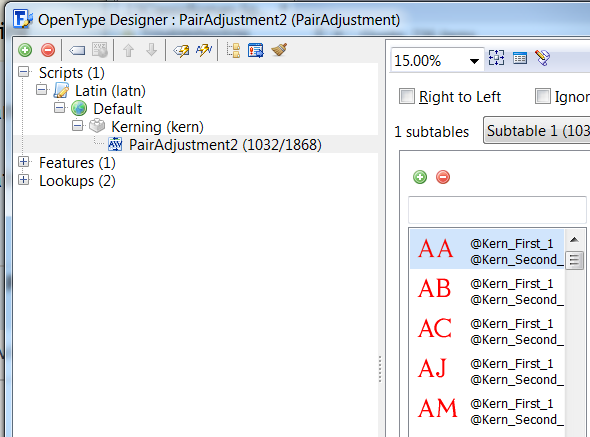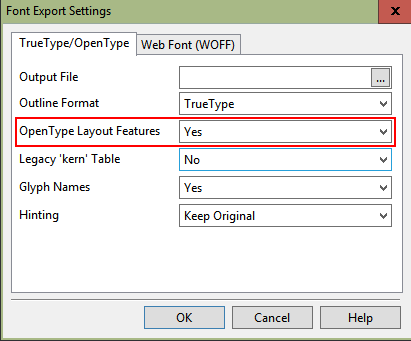
Can Fonts Be save as only a TTF font
Used FontCreator Pro V9 to create a Monumental Font and the Installer in the program to put into Windows 7 Home so other programs can use them. The fonts seem to work in Corel Draw, but not all programs.
Question is when I output a font is it saved as both a TTF and a OTF? Need the option to save only as a older TTF format. In my Gerber program within the program there is a TTF converter program to install them so they work from with in the program, which seem to be an issue that will not allow them to install. Not sure if the problem is with the Gerber Omega program or with how FontCreator files are created and stored. Any insight on what is going on or what I can do to get the fonts to work.
Just change the file extension to *.ttf in the Font Export Options.
There is no important difference. If you just renamed your *.otf fonts to *.ttf, your program will accept them.
Hi, thanks for the info. I have attached the Created Font File to this e-mail for you to evaluate to see why I might be having issues of it not being able to install on my Gerber Omega 5.0 TTF font install program. It seems to work under Corel Draw OK, but not my Omega Program. Not sure why this program is having issues of importing the font into the program.
I believe to get a TT-only font, you need to also change the Export drop-down shown in the screen shot to “No.”
That should work, and if you want kerning you should include a legacy kern table too. FontCreator 9 kerning uses OpenType tables.
Strangely Microsoft Word (2007 version) only does kerning if the font has a legacy kern table, even for OpenType fonts.
There’s nothing strange about that. Serif PagePlus X8 or earlier has the same issue, and that supports OpenType GSUB features, but Microsoft only introduced OpenType support for Word in version 2010.
Have tried setting the output files to TTF only, when I check the file afterwards the extension on the file is always OTF. Also when I ask to rename the file do not get the option to change the extension from otf to only ttf. Have also turn on Legancy Setting to see if that helps, turned off open type features NO, Hinting original. Always end up with a otf font file. Help!
In general the font file extension is irrelevant, but some older software might depend on it, so manually try to rename the extension to .ttf and see if that helps.
Delete the text path/filename from the export options. With the settings as indicated, when you export choose ttf from the drop down in the export dialog. Once in a while it will try to still keep the otf extension. You should be able to see that happen when the filename is then populated in the export dialog. If that happens, try the drop down for the file type again.
Just Made my 2nd Version on a Classic Roman Monument Sandblast font used at 2 1/2" plus sizes, attached is the file for your review would like any suggestion to improve or speed up the process, still spending a lot of time having to manual kern letter pairs even after using auto kern in FrontCraetor 9.0. Have replaced several of the characters with divider bars to make it more useful in my Industry for use. I’ll see if I can upload the creation file and a TTF of it, still having issues trying to install in my Gerber Omega Program even though it works in Corel Draw.
Nice design, but the font doesn’t contain any kerning. Maybe you are talking about the left and right side bearings of each glyph.
Maybe it doesn’t like the characters (e.g. " ) in your font name (2.5"+ Classic Roman -Sgobba Mon)? Or maybe it is too long. Do give it a simple name like Sgobba Mon
Not sure what you mean that it doesn’t included any kerning, ran font through auto metrics / kern, but then had to adjust many of the side metrics on the separator dashes used with the dates cause the program change some of my orginal metrics bearings, also placement of period and comma. Font is accepted in most programs except for the one I need to run it in the most.
Plan on contacting Gerber Omega tech support and see what they have to say.
As you can see the font itself is very basic which contains the most often used characters that I use in the Monument Industry at large sizes , not like Desktop publishing or in a word processor at 12-20 point.
PT,
Does the Gerber application still require that TTF fonts be converted to their own proprietary format? There use to be an included utility to do the conversion. And there use to be a very specific folder where the fonts needed to reside in order for the application to see and use them. But that was back a couple versions if I recall properly.
Mike
Gerber Omega has a TTF Font Converter subprogram from within their main Omega program that should convert to what they call a softfont that is used in their program. It starts to install and then I get a error message “Can’t Open Softfont”. Within the Omega 5.0 program now is a Gerber Folder Location >Fonts to see their softfont that are installed in Omega.
1 Rename the font to something without punctuation in it’s name.
2 Renaming to a shorter name.
After I had done those suggestion the font now installs into the program.
It boggles me that any company would adhere to legacy file naming in 2015 for reading fonts (much less anything else).
If I’m correct they are talking about the font name, not the file name.
And yes, it is good news that the problem is now solved!